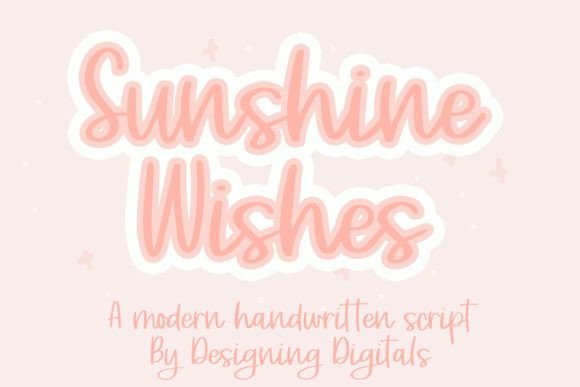
Prepare yourself to unveil the radiance of Sunshine Wishes – an exceptional script font that will cast a spell on your creative projects. Let your imagination soar as you design captivating logos that radiate joy and positivity. Craft one-of-a-kind greeting cards that exude warmth and heartfelt emotions. Unleash your creativity in designing t-shirts that spread cheer and inspire smiles wherever they go. Adorn your social media posts with captivating images adorned with this elegant script. Let your passion shine through as you create stickers that add a touch of magic to your belongings. Sunshine Wishes is perfect for adding a unique touch to any crafting project, whether you're making personalized gifts, home décor, or party decorations.
With Sunshine Wishes, the possibilities are endless. Its versatility knows no bounds, allowing you to add a personal touch to any project you undertake. Experience the joy of creating designs that reflect your unique style and personality. Let your creativity shine as you work with this beautiful handwritten script font, crafted with love and care by designingdigitals.
But wait, there's more! Sunshine Wishes is not just a font; it's an invitation to embark on a creative journey filled with delight and wonder. Its ligatures add an extra layer of sophistication, enhancing the overall aesthetic of your designs. And because it's compatible with any program that supports open-type fonts, you can effortlessly incorporate Sunshine Wishes into your existing workflow.
Don't let this opportunity pass you by. Embrace the beauty of Sunshine Wishes today and embark on a creative adventure that will leave you feeling inspired and fulfilled. Let your designs bloom with joy and positivity as you experience the transformative power of this enchanting script font. Unleash your imagination and let the Sunshine Wishes font guide you to new heights of creativity!